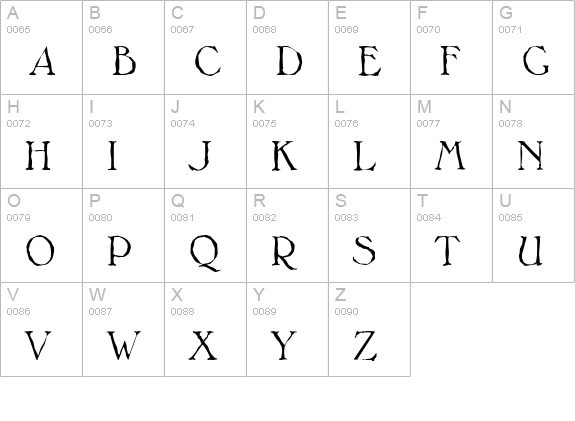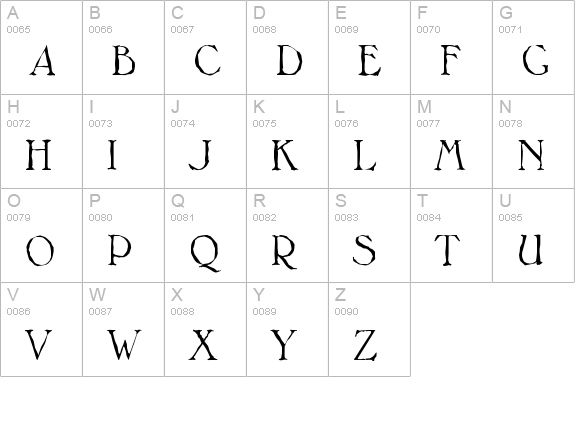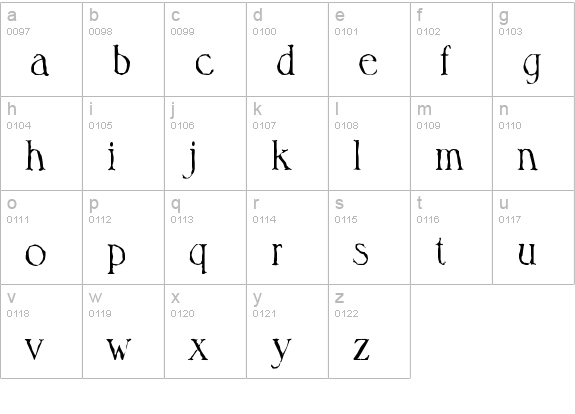
MelbourneAntique-Light-Regular is a refined, elegant variant in the MelbourneAntique typeface family \xE2\x80\x94 well suited to elegant body text, refined sub-headings, and luxury branding.
MelbourneAntique-Light-Regular is a timeless and elegant serif font that exudes a vintage charm reminiscent of antique prints and documents. Its delicate strokes and ornate details make it perfect for adding a touch of sophistication to your projects. This font is a versatile choice for various design applications, from elegant invitations to classic branding materials. What makes MelbourneAntique-Light-Regular even more appealing is that it is available for free download at FontsMarket.com. This means you can easily access this beautiful font and enhance your designs with its classic aesthetic without any cost. Don't miss out on the opportunity to elevate your projects with MelbourneAntique-Light-Regular - download it for free today!